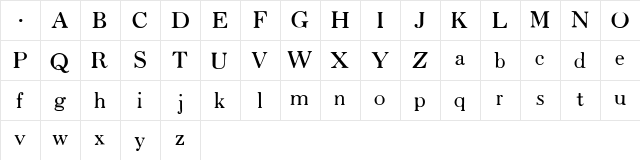
01196g Regular Font Preview
01196g Regular
Design Context for 01196g Typeface
01196g takes a measured approach to typography — its balanced proportions and neutral character make it a reliable workhorse for both digital and print work.